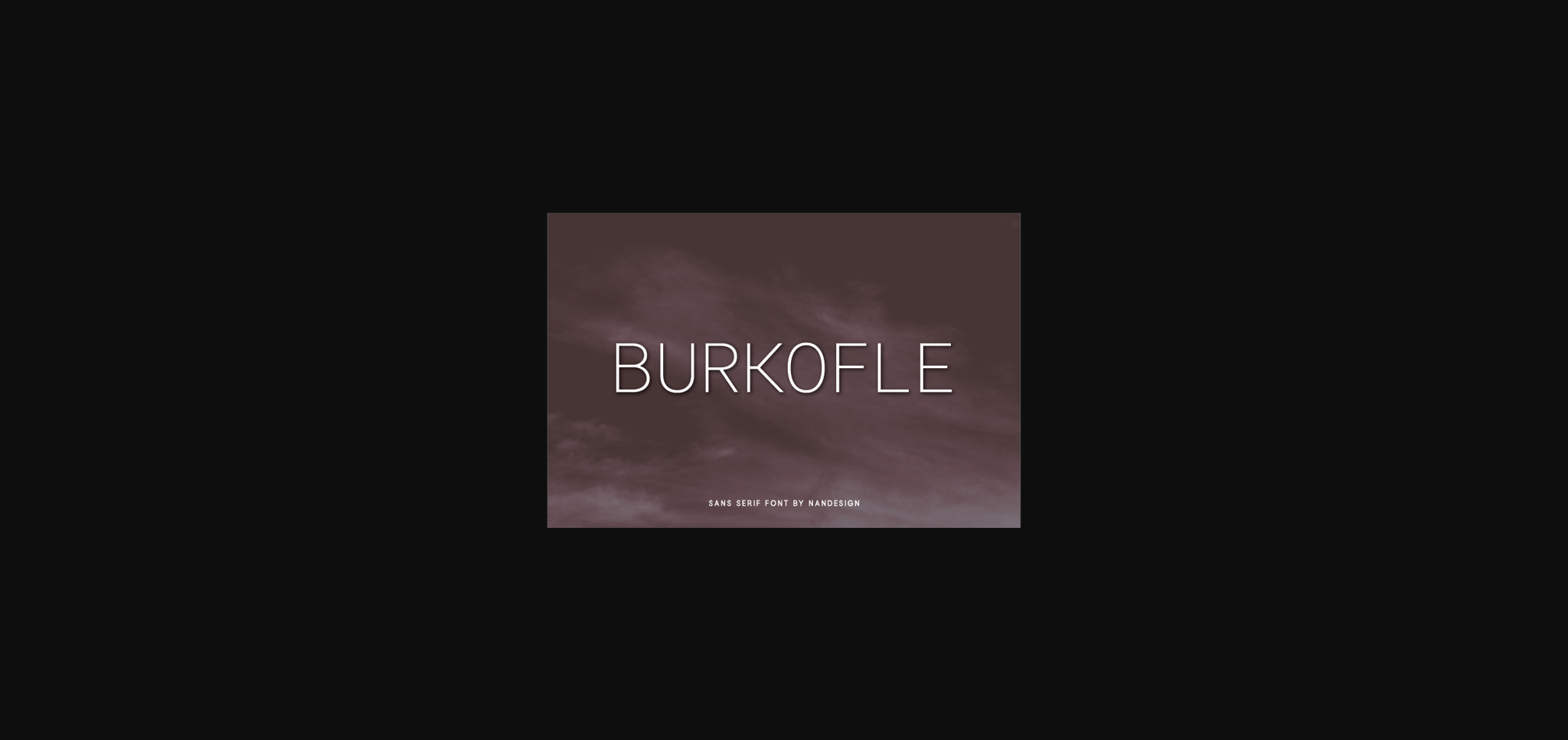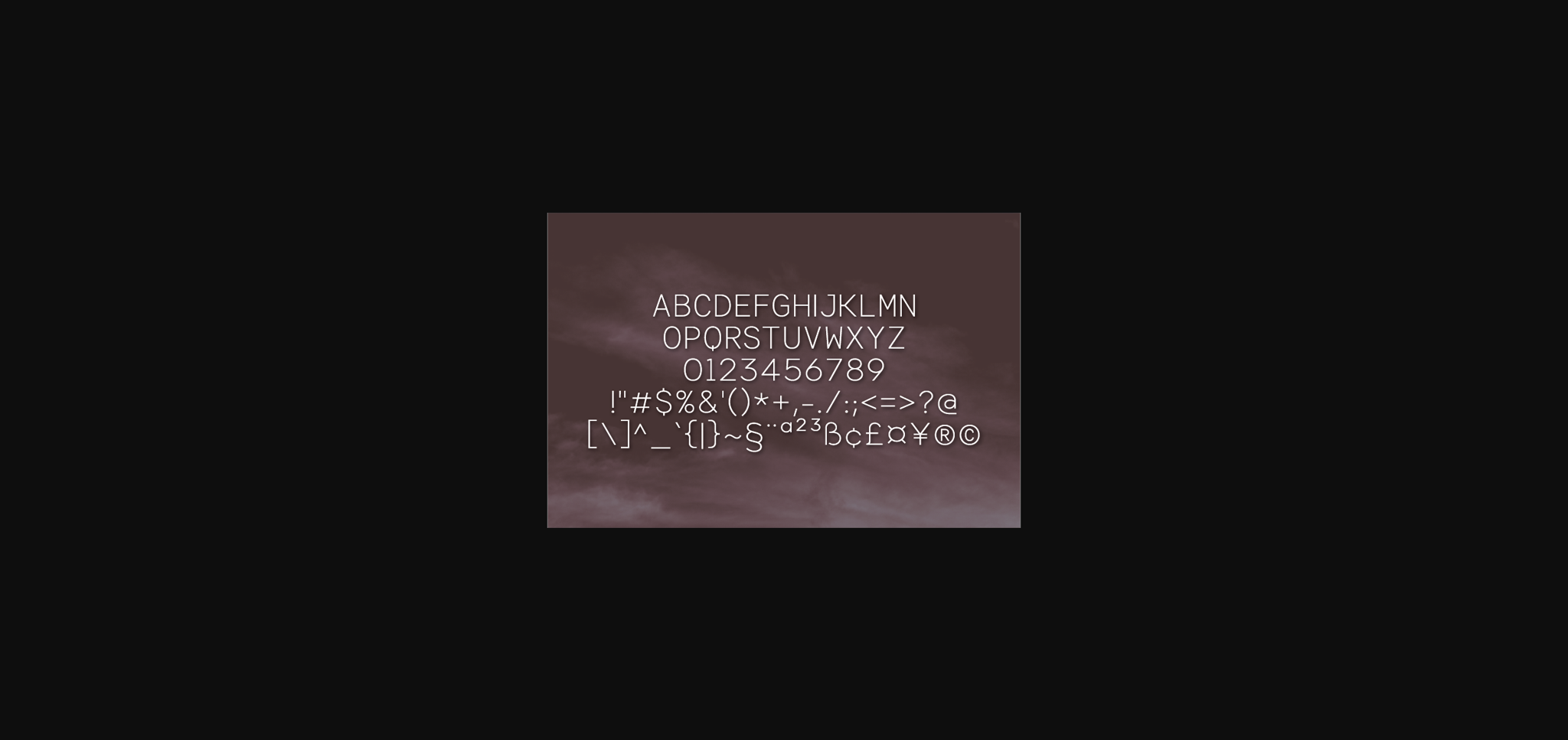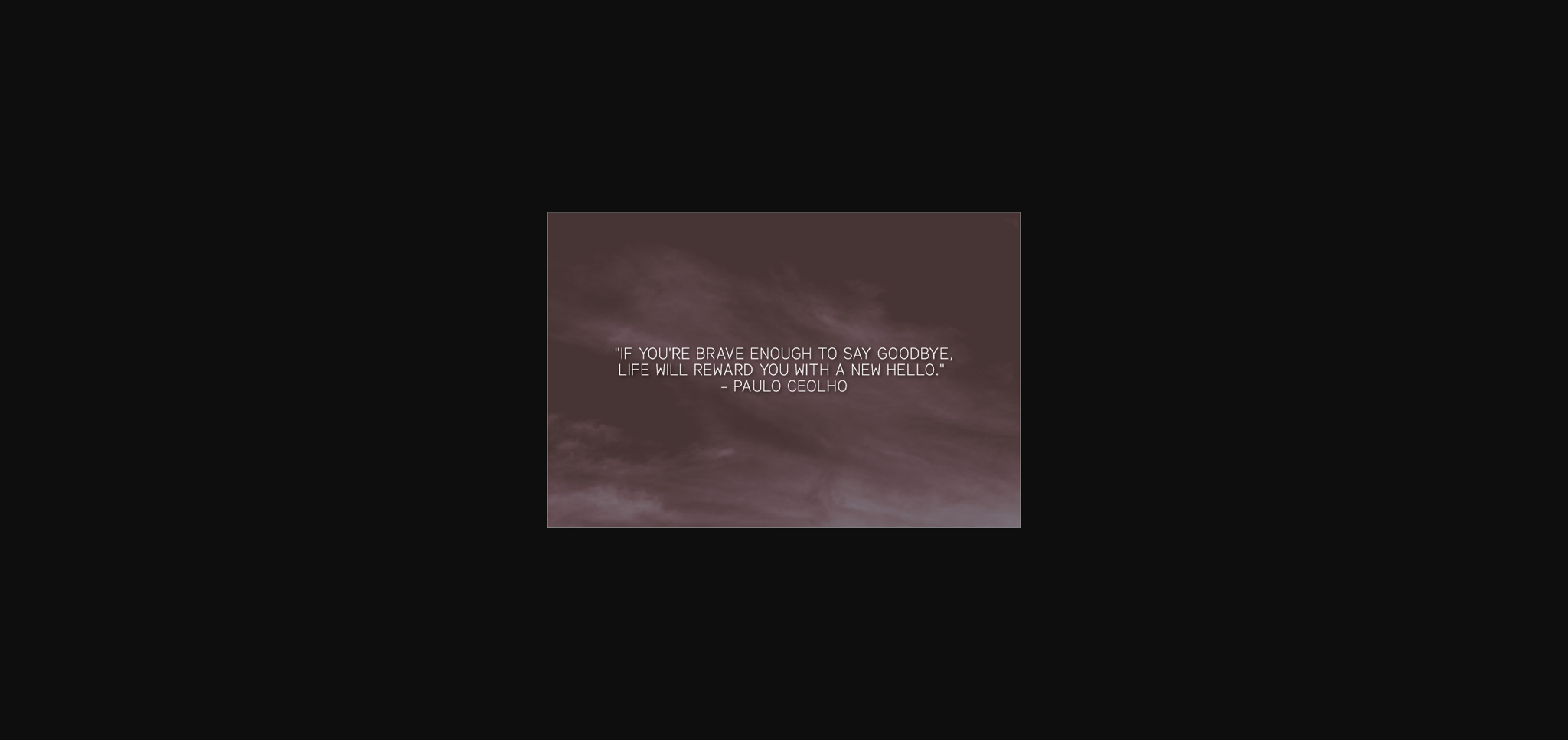
About Burkofle Font
Burkofle is a minimal and thin lettered sans serif font. It can easily be matched to an incredibly large set of projects, so add it to your creative ideas and notice how it makes them stand out! It looks great on displays, headers, invitations, save the dates, weddings, and so much more!